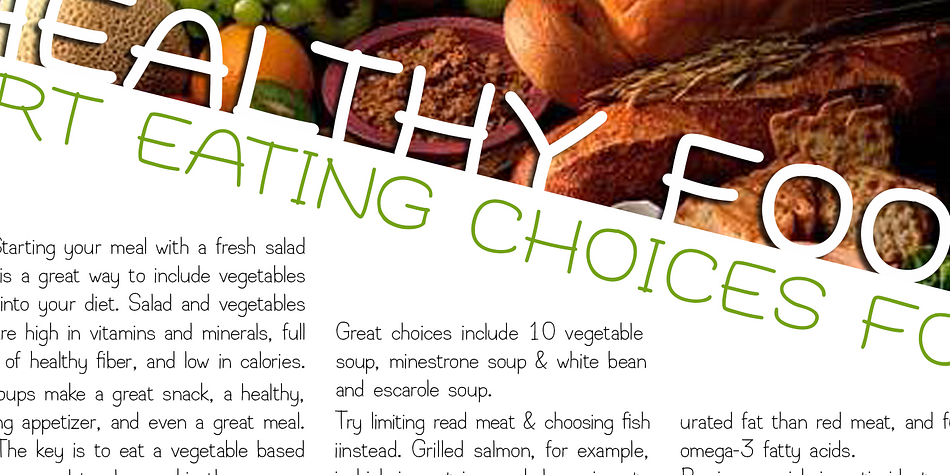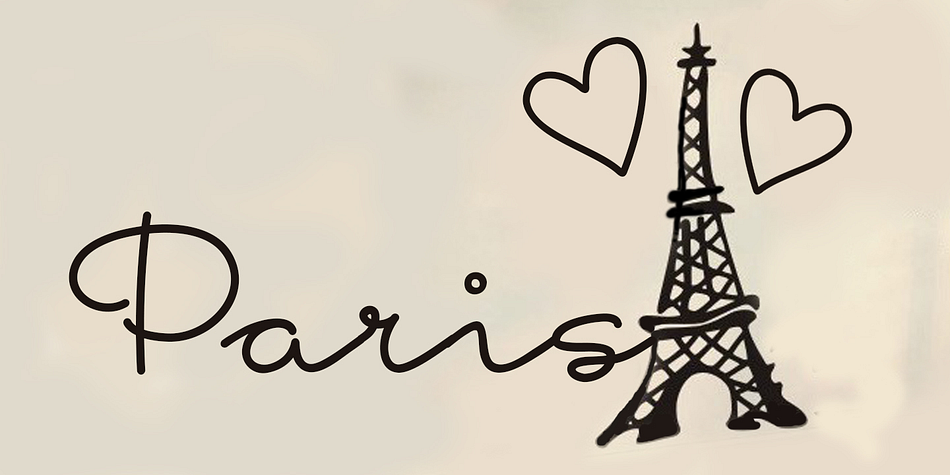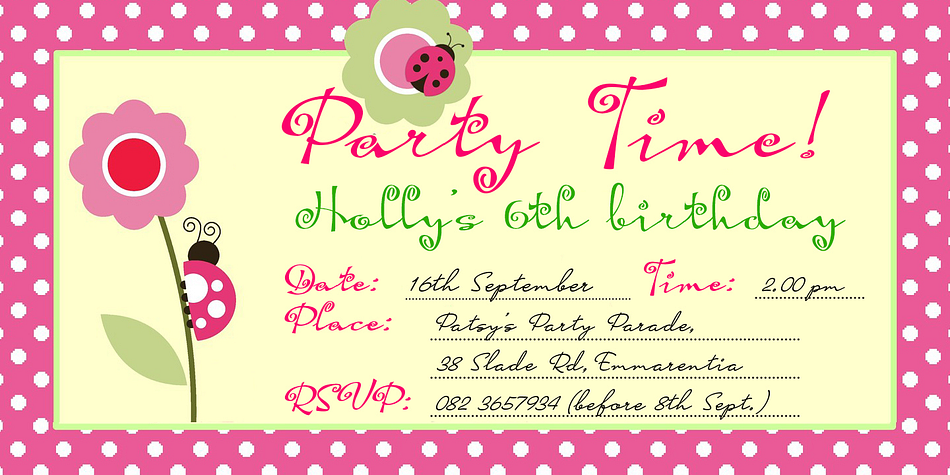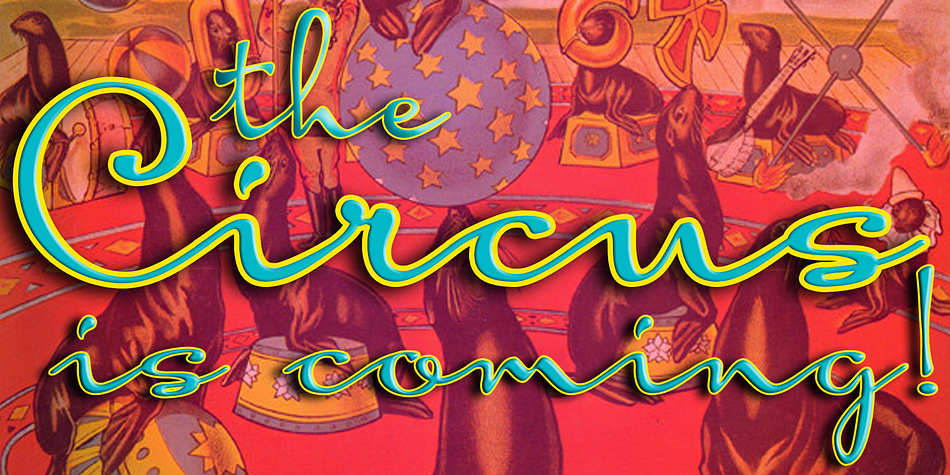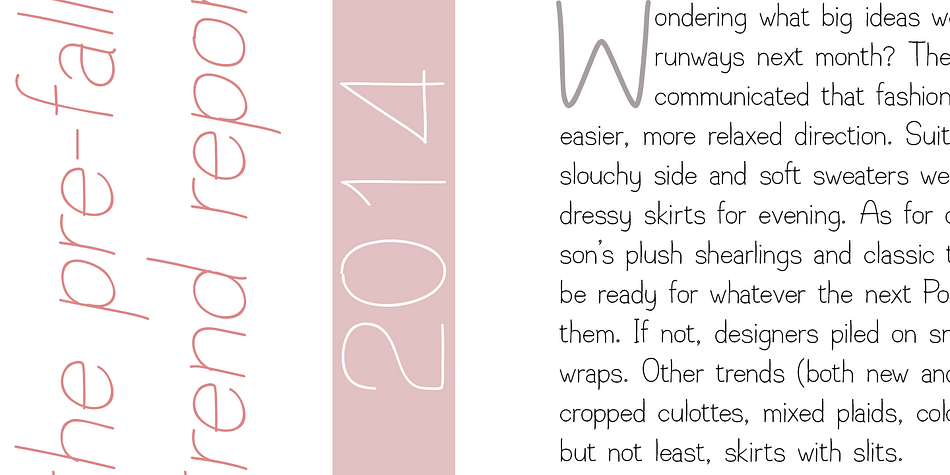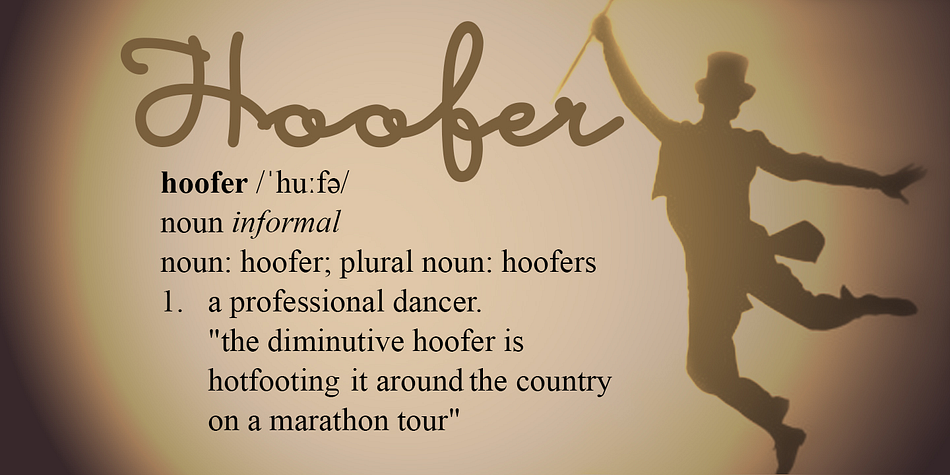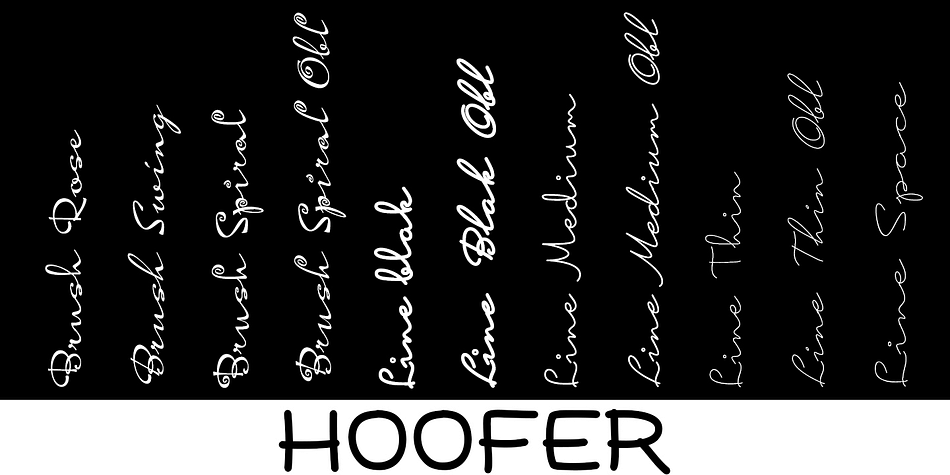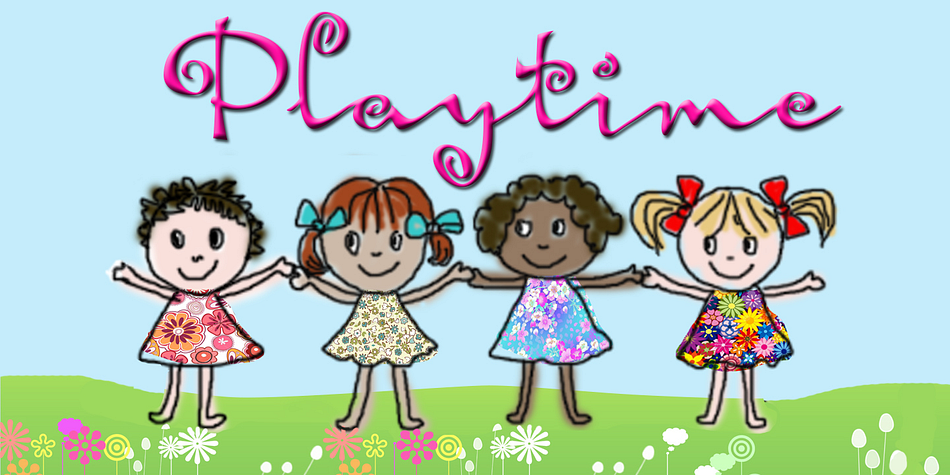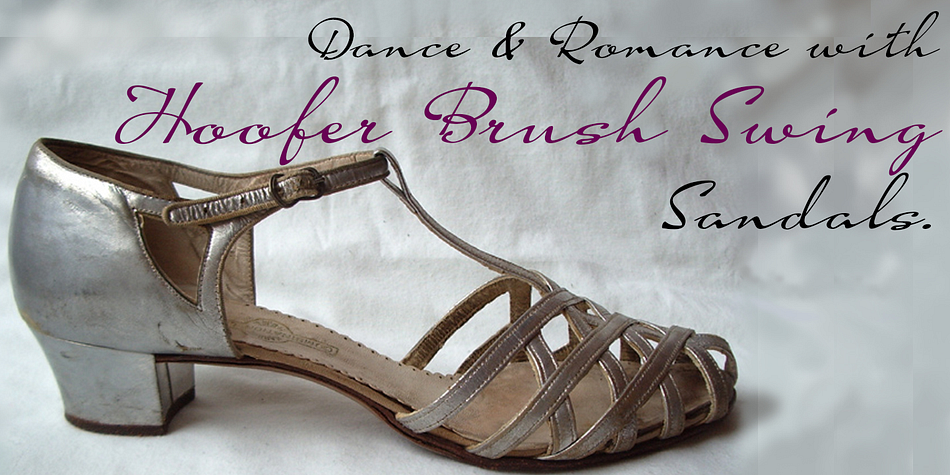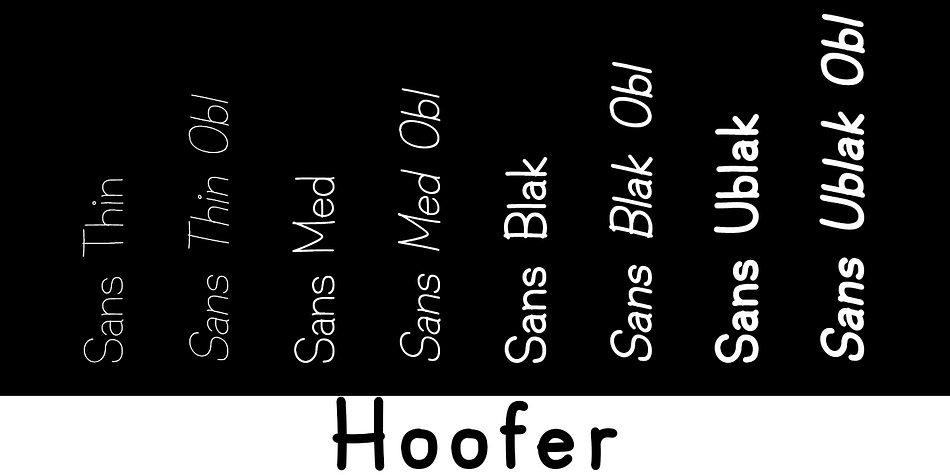
Designed by Anton Scholtz, Hoofer is a multiple classification font family. This typeface has twenty-eight styles and was published by Scholtz Fonts.
The Hoofer Mega-Family of 28 fonts can be divided into three sub-families:
Hoofer Brush: An eclectic group of five fonts. These are mainly joined scripts.
Hoofer Line: Seven mono-line scripts with joined letters in a number of weights, widths and styles.
Hoofer Sans: Sixteen casual, Sans-Serif fonts. They are very readable and in a variety of weights & styles
The mood of the Hoofer mega-family is light and flexible, slightly retro, casual and readable. It combines script and many sans-serif styles with ornaments into one Mega-Family. The different styles of the Hoofer Mega-family have been chosen to work together and to harmonize in a pleasing way.
The Brush Sub-Family is designed for titling, packaging and display purposes.
The Line Sub-Family can also be used for titling, packaging and display, however, it is less “showy”, and conveys an air of informality.
The Sans Sub-Family is designed to shine as sub-heads and as body text. The wide range of Hoofline styles gives you, the designer, great flexibility in creating just the mood or impression that you want.
Most of the fonts can use one or more OpenType Features. These can be accessed in a number of ways. The reason for this is that the major software producers provide different (and often conflicting) ways of accessing OpenType Features. In some cases such software manufacturers provide NO way of accessing certain OpenType Features. We have tried to remedy this by providing a highly flexible family of fonts.
OpenType features that Hoofer makes use of are: Swashes (Word-Begin and Word-End Features); Alternate Numerals; and True Small Caps.
Ornaments: In addition the Hoofer family has a font containing 94 ornaments.
You can access two sets of figures (numbers) in Hoofer Sans fonts. Both sets are tabular and lining but they differ in the height (but not the width) of the figures. The height of the alternate figures has been chosen so that they are compatible with the small caps. However, these alternate figures are available in ALL Hoofer Sans fonts, whether they feature small cap fonts or not.
Hoofer has all the features usually included in a fully professional font. Language support includes all European character sets, Greek symbols and all punctuation. Opentype features include automatic replacement of some characters and discretionary replacement of stylistic alternatives.